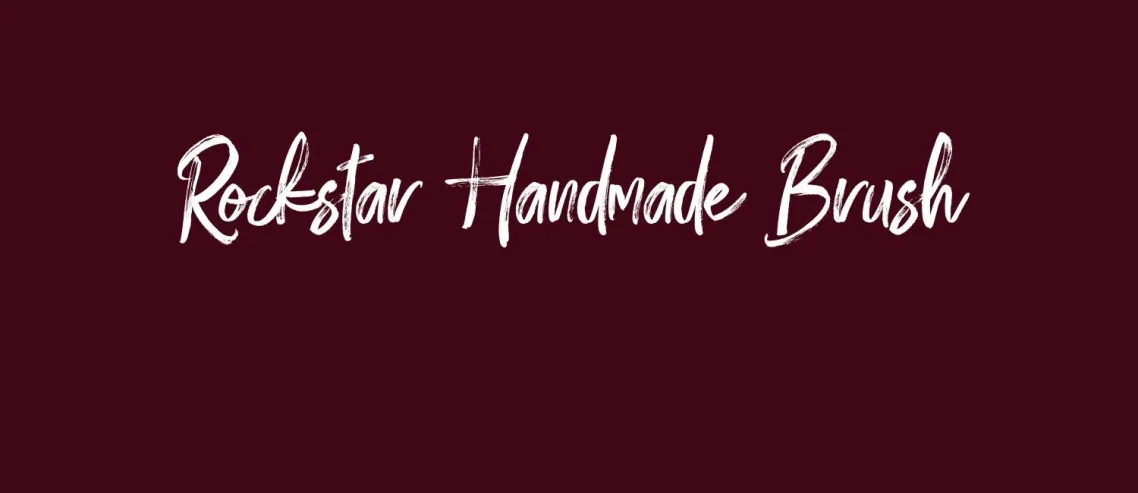
Rockstar Handmade Brush Font Free Download
RebelBrush Creations presents the Rockstar Handmade Brush Font, a rebellious and dynamic typeface that mimics the free-flowing strokes of a brush. This font is ideal for projects that demand a handmade, authentic feel, such as album covers, posters, or merchandise for edgy and artistic endeavors. With its bold and expressive style, Rockstar Handmade Brush Font …